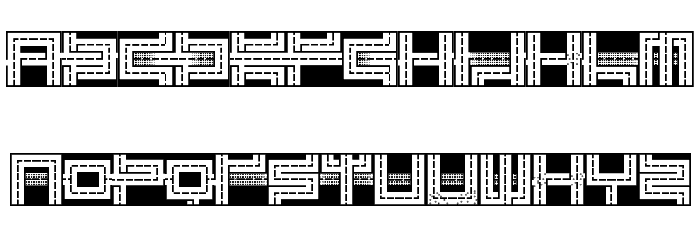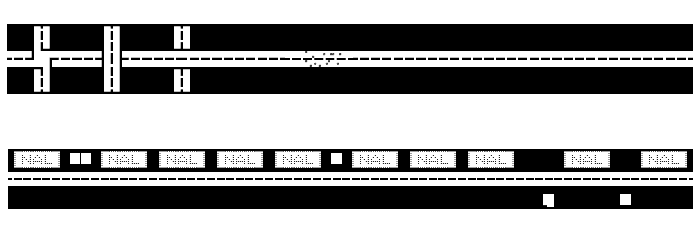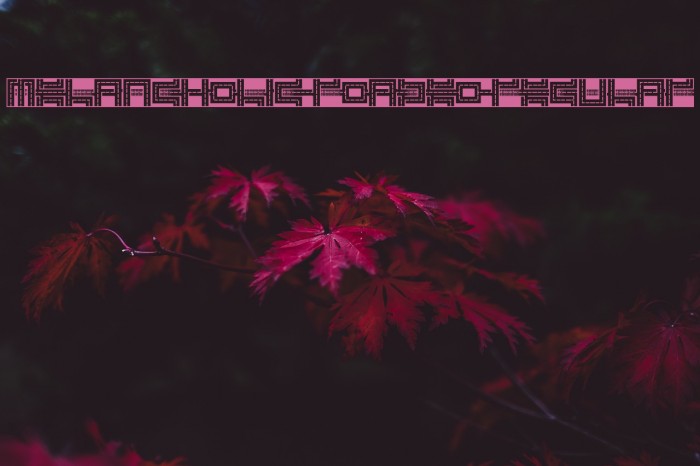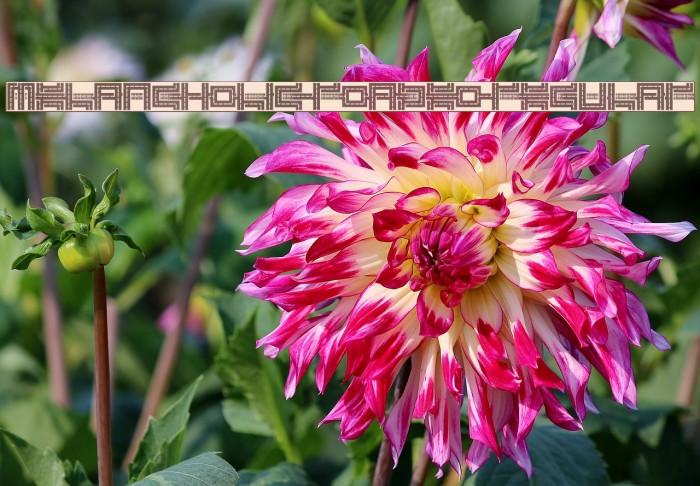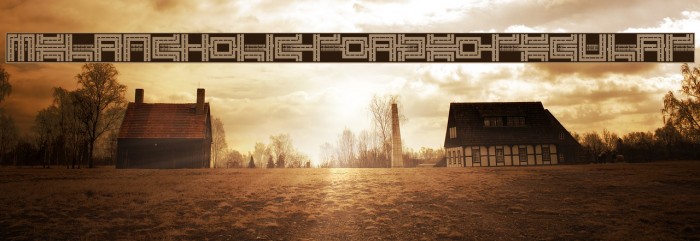
Melancholic Roadeo Regular Font
This font features a unique, geometric design with a maze-like pattern. Each character is constructed with a series of interconnected lines and shapes, creating a complex and intricate appearance. The font has a modern, digital aesthetic, reminiscent of circuit board designs or architectural blueprints. The characters are uniform in height and width, giving a monospaced feel, while the detailed line work adds depth and texture. The font is highly decorative, making it suitable for creative projects that require a distinctive and eye-catching typeface.
A geometric, maze-like font with a modern, digital aesthetic.
- Proposed Projects: Ideal for tech-themed designs, digital art, posters, and branding that requires a futuristic or architectural look.
- Use Case: Logos, Posters, Digital Art